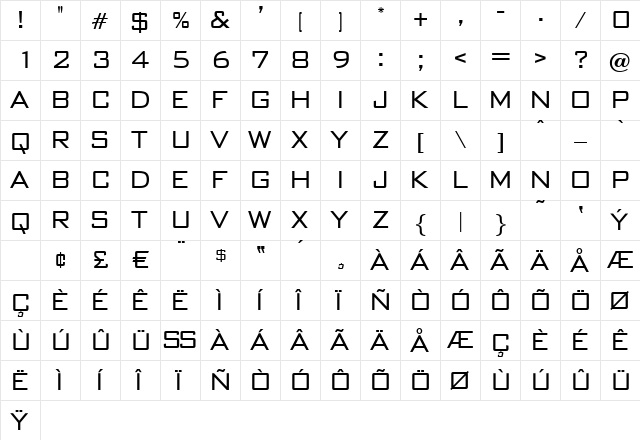
B652-Sans Regular
Design Context for B652-Sans Typeface
B652-Sans offers clean, dependable letterforms without strong stylistic allegiance, making it a practical choice for designers who need flexibility.